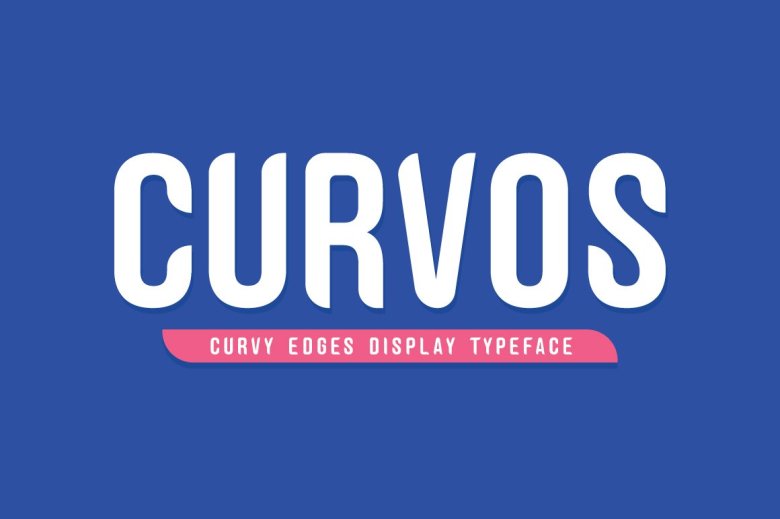
Curvos Font
Curvos features all-caps style pop art font and can be used for logos, branding and travel promotions as well as magazine layouts, beauty product packaging or quotes.
Curvos Display Font